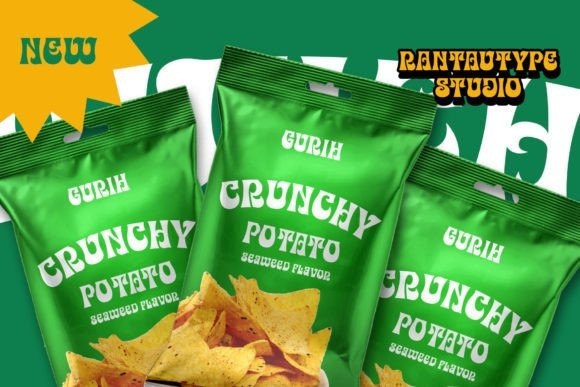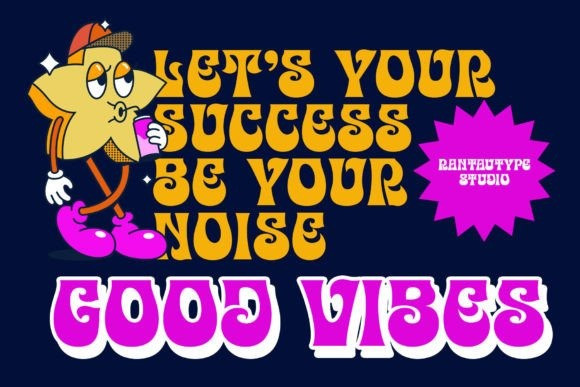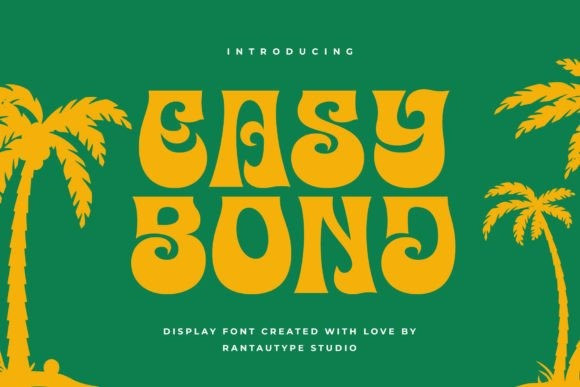
Easy Bond Font
Easy Bond Font is a unique and versatile serif display font that can give your designs a playful and friendly impression. It comes with many alternates, ligatures, and supports multilingual characters.
Easy Bond is available in both regular and italic styles, making it a beautiful choice for any creative endeavor. It’s perfect for creating fun, modern, and chic designs such as logos, titles, covers, branding, business projects, corporate projects, packaging, displays, magazines, and more. The font supports languages like Swahili, Swedish, Swiss, and German.